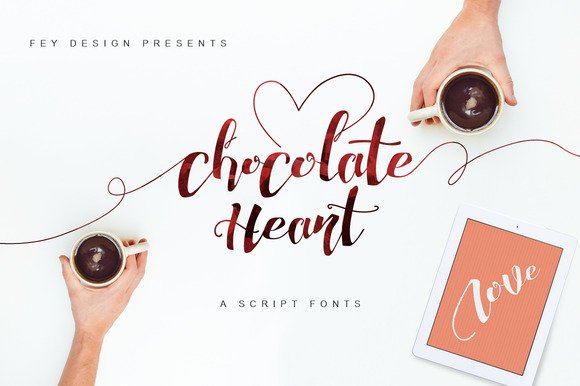
Chocolate Heart Script Font
Chocolate Heart is Modern Calligraphy Typeface available in OTF OpenType format. Suitable for wedding invitation, event, t-shirt, logo, badges, sticker, etc. Demo version download is available for free. For more complete characters set, make sure to check out Chocolate Heart Full Version.